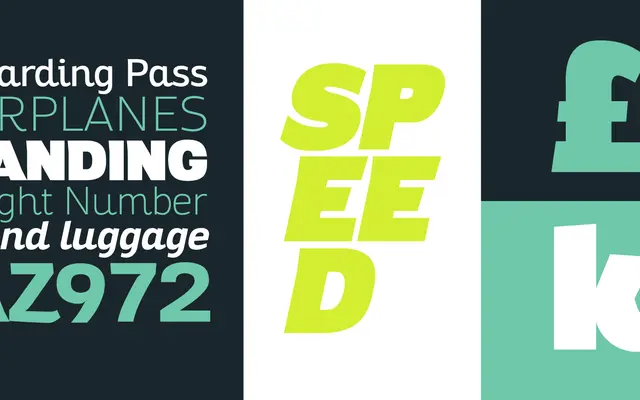
Altair
Zetafonts · Francesco Canovaro, Cosimo Lorenzo Pancini, Andrea Tartarelli · 2016
A seven-weight humanist sans with calligraphic roots, derived from Zetafonts' own Digitalino and suited to corporate and editorial work.
Expanded from Francesco Canovaro's original bold design for Digitalino, Altair runs from Thin to Ultra across 14 styles including matching italics. Its calligraphic underpinning gives the letterforms a warmth that suits brand voices and editorial contexts where a neutral grotesque would feel too cold. Coverage extends to 202 languages across Latin and Greek scripts.
Altair is derived from the calligraphic Digitalino typeface, giving it humanist roots with organic stroke contrast that distinguishes it from geometric or grotesque sans-serif traditions.